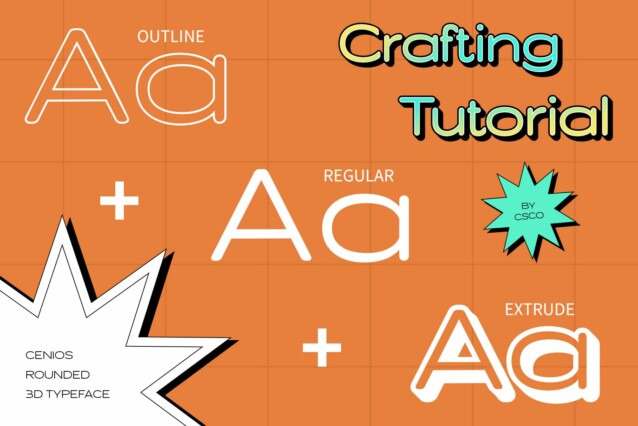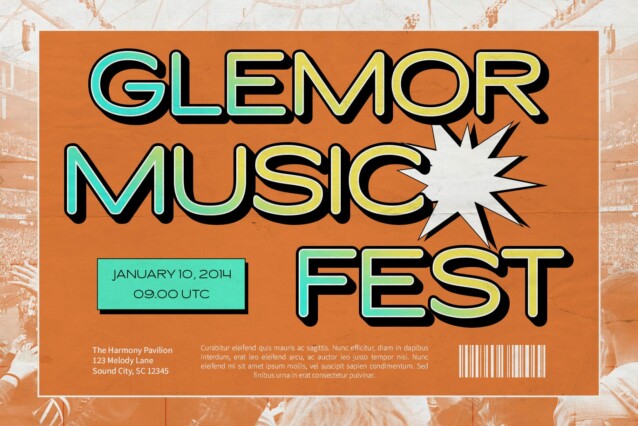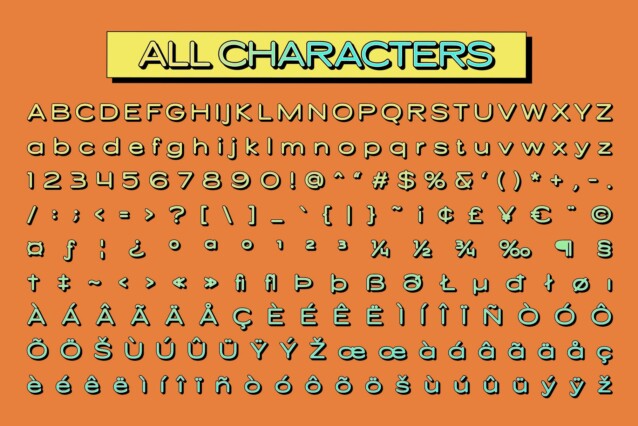
Cenios Rounded 3D Font
Cenios Rounded 3D Font is a modern sans serif font that stands out with its expanded and rounded shapes, creating a soft and approachable impression. The smooth, rounded lines evoke a sense of warmth and friendliness, making it an excellent choice for designs that aim to connect with audiences on a personal level. Its clean and contemporary look is versatile enough to be applied across various design applications, from digital platforms to print materials.